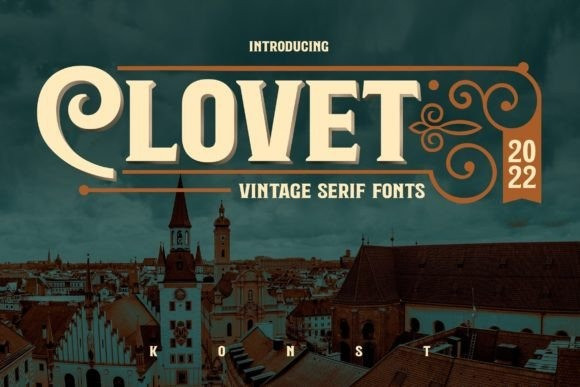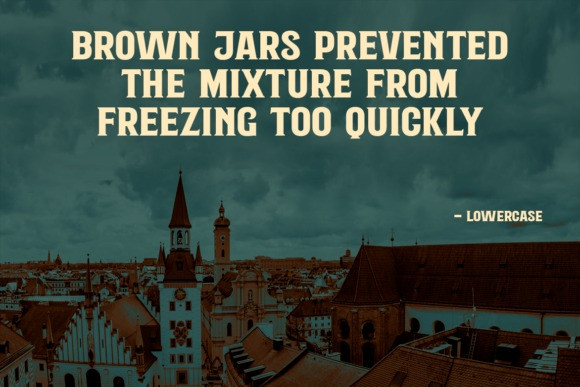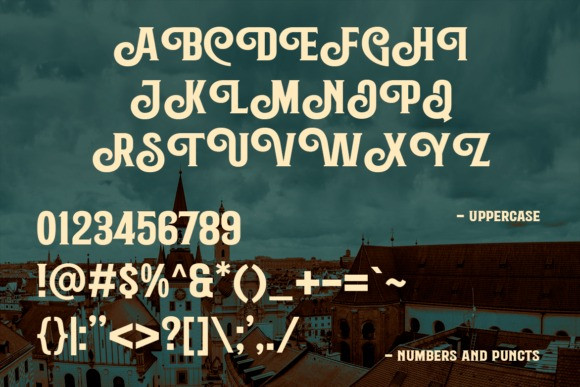
Clovet Font
Instantly get back to the past with Clovet, a bold and vintage serif font. A strong yet ornamental drop caps font for your classic visual needs.
Perfectly fit for your signage design, sign painting concept, book cover, title, logo, branding, decorative ornamental design, and many more.